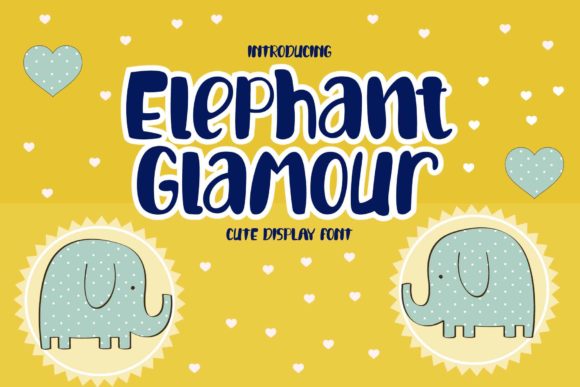
**Elephant Glamour: The Enchanting Font for Joyful Creations**
Step into a world of whimsical charm and imagination with Elephant Glamour, the captivating display font designed to ignite creativity and bring smiles to every project. Crafted by the skilled hands of Alfinart, this font exudes a playful spirit that's perfect for children's books, school projects, and any endeavor that calls for a touch of youthful exuberance.
**A Symphony of Joy and Authenticity**
With its adorable curves and endearingly imperfect lines, Elephant Glamour embodies the boundless imagination of childhood. Each character dances across the page like a playful elephant, evoking a sense of nostalgia and innocent wonder. Its authenticity shines through in every stroke, making it the perfect choice for capturing the unique voices and stories of young minds.
**The Perfect Canvas for Magical Adventures**
Whether you're crafting enchanting tales, designing vibrant posters, or creating unforgettable invitations, Elephant Glamour provides the perfect canvas for your imagination to soar. Its childlike charm adds a touch of magic to any project, transforming ordinary creations into extraordinary adventures.
**Let Your Creativity Bloom**
Unleash your inner child and let your creativity flourish with Elephant Glamour. This remarkable font inspires endless possibilities, encouraging you to embrace the joy and wonder of childhood. Its playful nature sets the stage for stories that ignite imaginations and projects that leave lasting memories.